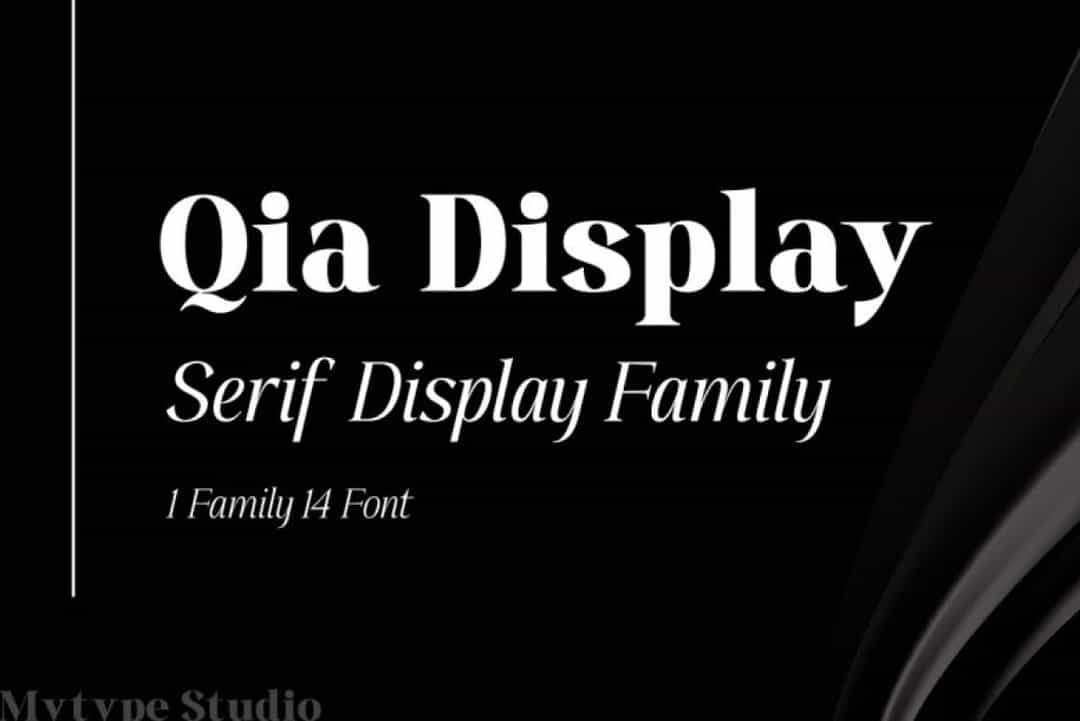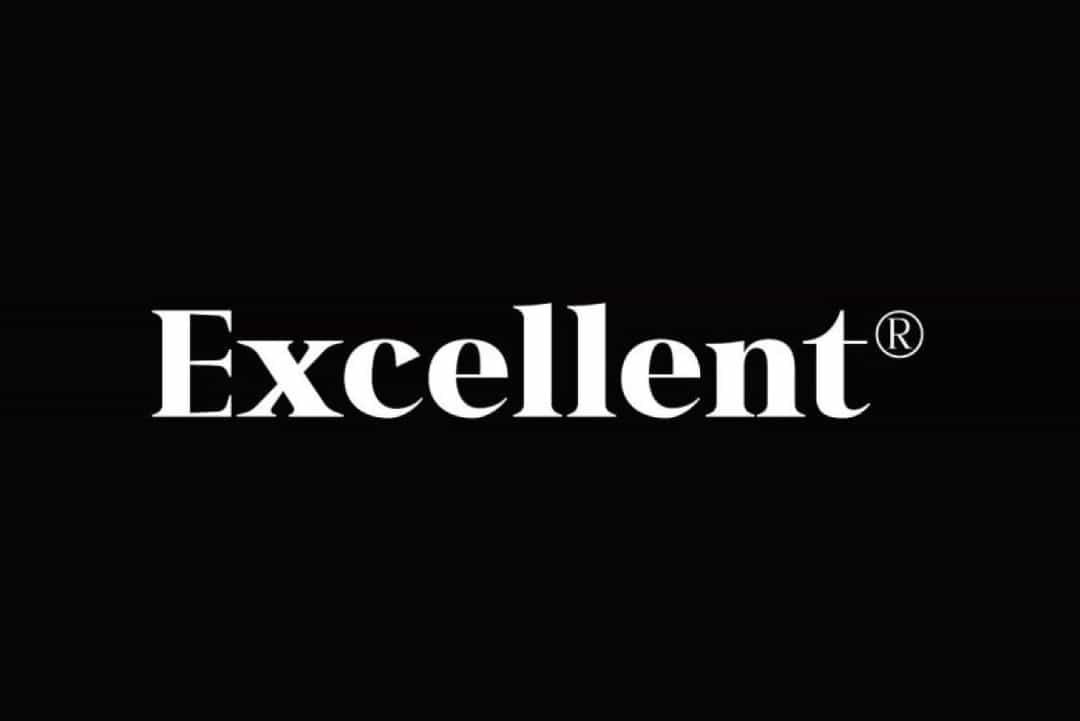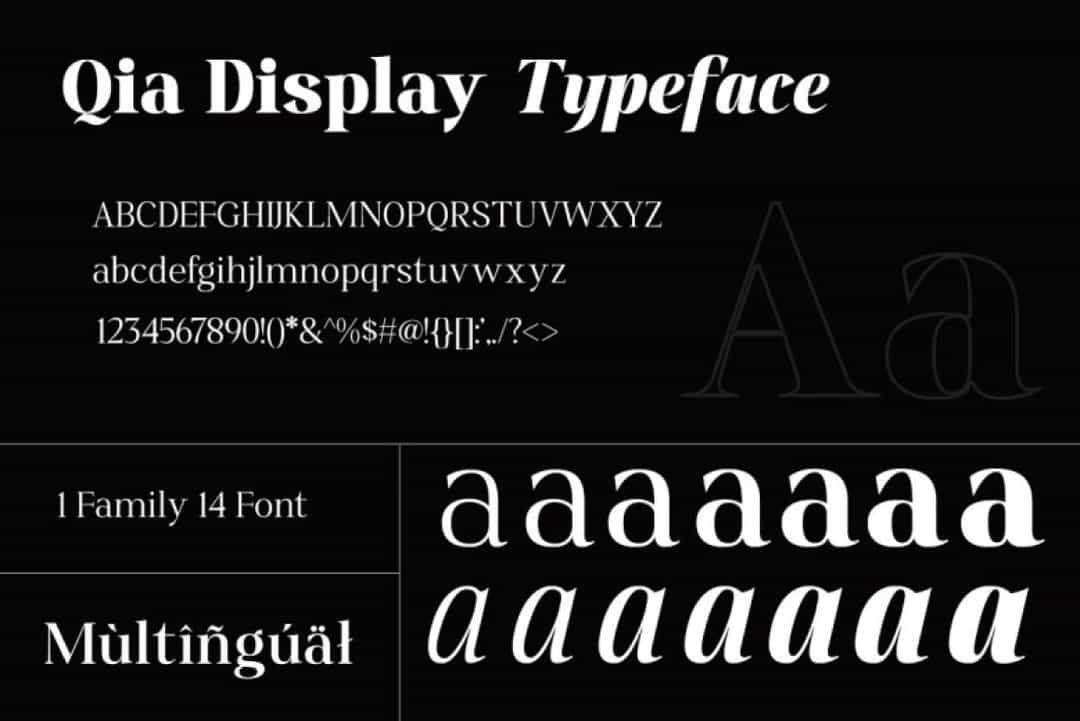
Qia Display is a contemporary serif typeface that exudes elegance and grace with every character. Suitable for luxurious designs, logos and branding of sophisticated editorials for women magazines as well as cosmetic brand advertising designs in fashion industry and much more.